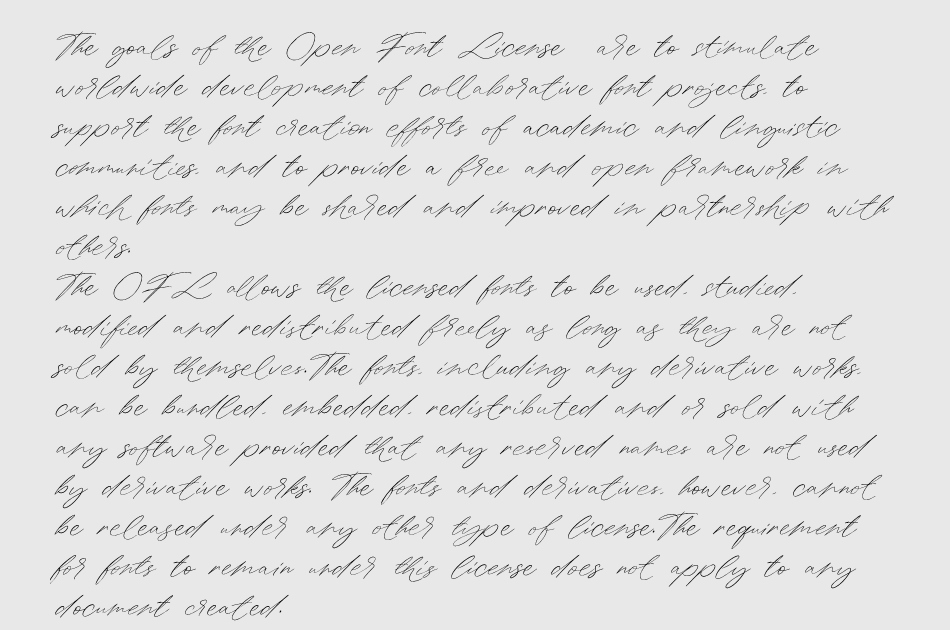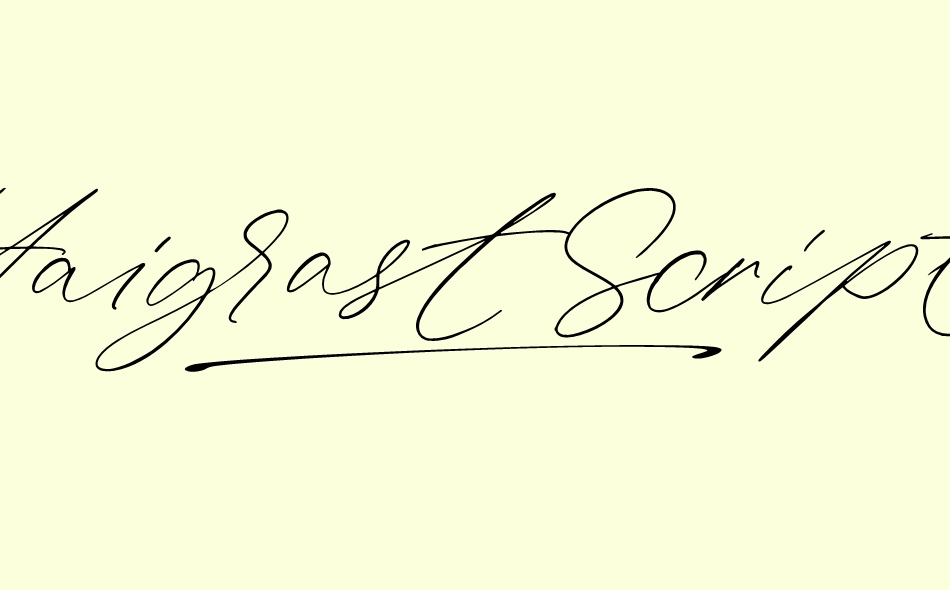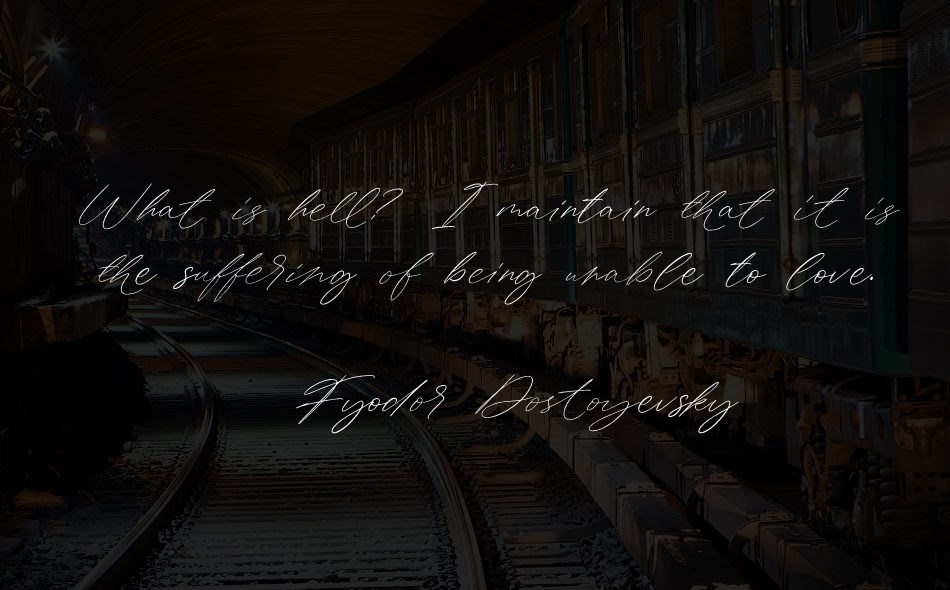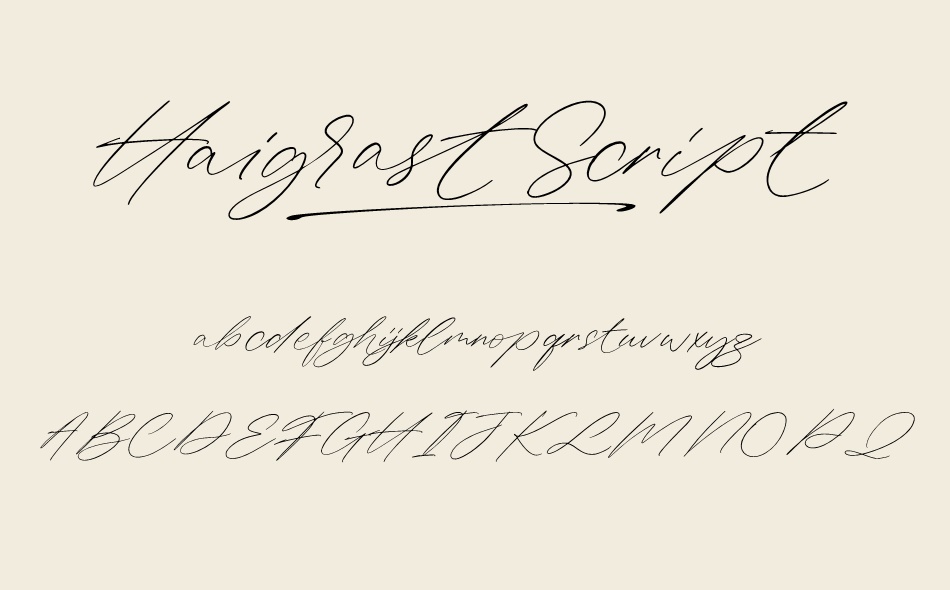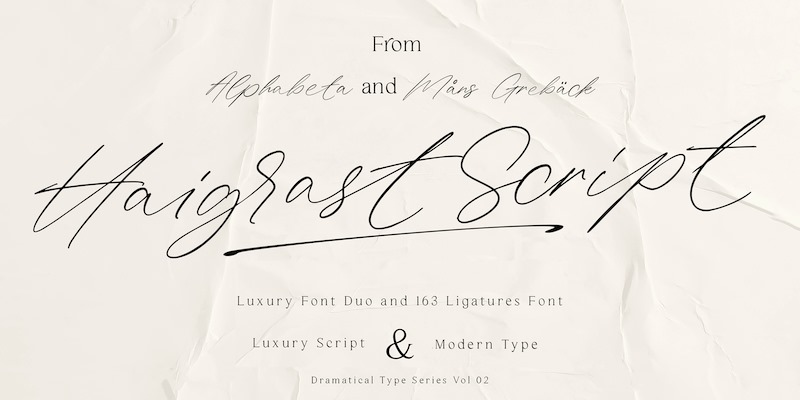
Haigrast Script font
Use underscore _ to make an underline swash.
Example: Love_letter
Use multiple underscores to make different swashes.
Example: Hand__________writer
Haigrast Script is the light and thin handwritten font that brings a touch of fashion and fun to any project. Designed by Mans Greback in 2023, this signature script font is the perfect choice for designers looking to add a touch of personality to their work. With its cute and feminine design, Haigrast Script is ideal for wedding invitations, fashion logos, and other creative projects that require a fast, active and wild style. This font is perfect for those who want to make a bold statement in their design work. Whether you're creating a fashion magazine cover, a social media post, or a wedding invitation, Haigrast Script is the perfect choice for designers who want to make a lasting impression.
Use underscore _ to make an underline swash. Example: Love_letter
Use multiple underscores different underlines. Hand__________writer
The Haigrast Script family consists of four high-quality fonts: Regular, Italic, Bold and Bold Italic
Also includes the bonus font Haigrast Serif!
The font is built with advanced OpenType functionality and has a guaranteed top-notch quality, containing stylistic and contextual alternates, ligatures and more features; all to give you full control and customizability. It has extensive lingual support, covering all Latin-based languages, from Northern Europe to South Africa, from America to South-East Asia. It contains all characters and symbols you'll ever need, including all punctuation and numbers.